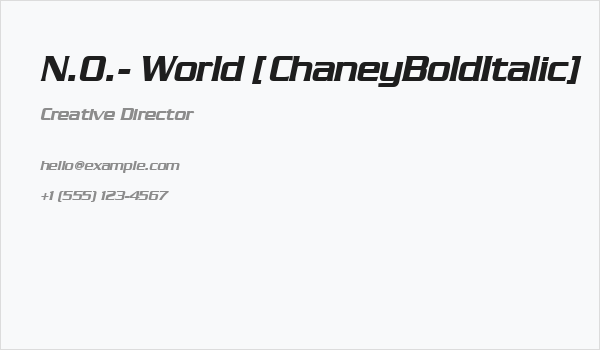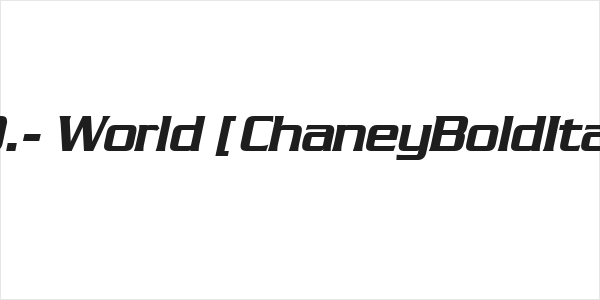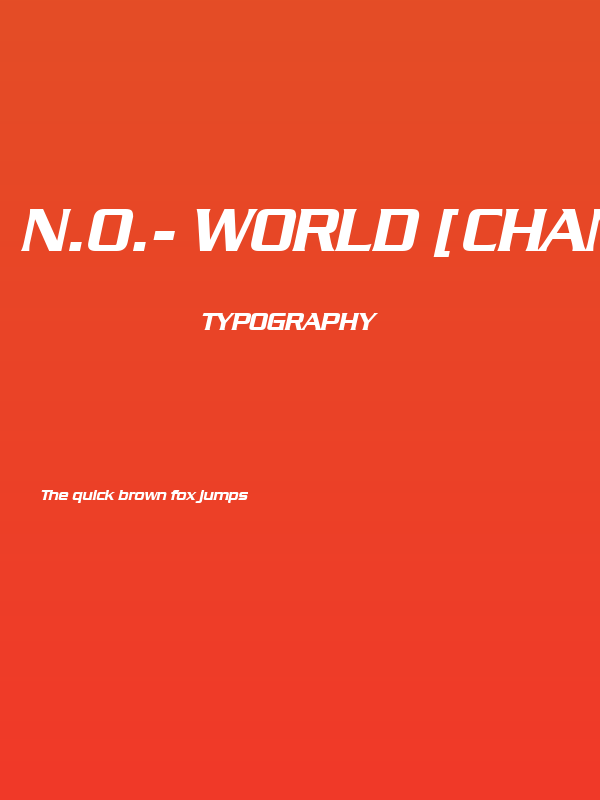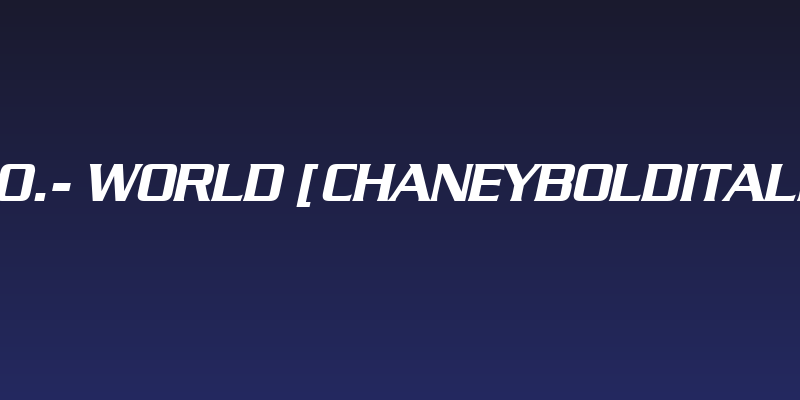
N.O.- World [ChaneyBoldItalic] Font
N.O.- World [ChaneyBoldItalic] Description
This font features a bold and italicized style with a modern and dynamic appearance. The characters are slightly slanted, giving a sense of motion and energy. The strokes are thick and consistent, providing a strong visual impact. The uppercase letters are tall and commanding, while the lowercase letters maintain a balanced proportion. The numbers are clear and bold, ensuring readability. Special characters are designed to match the overall aesthetic, making them suitable for various design needs.
| Proposed Projects | Ideal for sports branding, dynamic posters, modern advertising, and tech-related projects. |